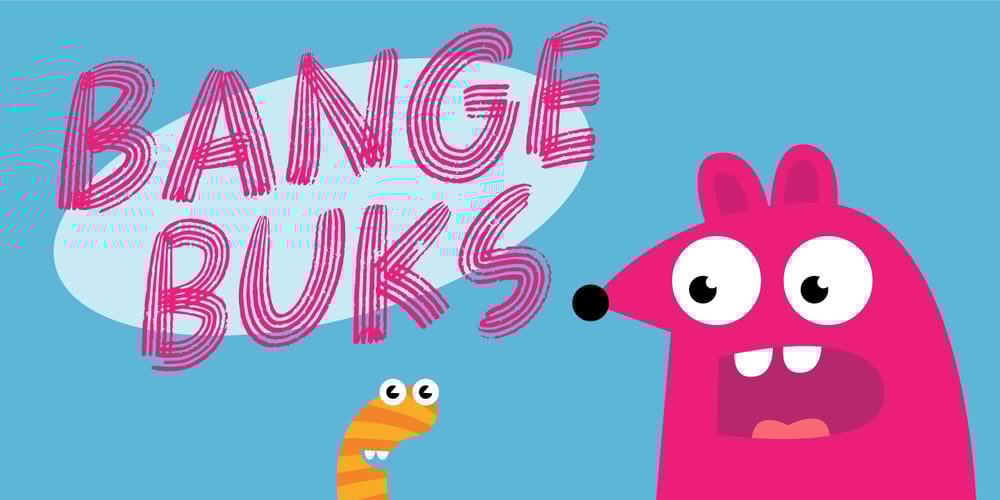
Bangebuks Font Family was designed by Jakob Fischer and published by PizzaDude.dk. Bangebuks contains 2 styles and family package options. Bangebuks is perfect for those comic posters, invitations, flyers or whatever needs a special attention!